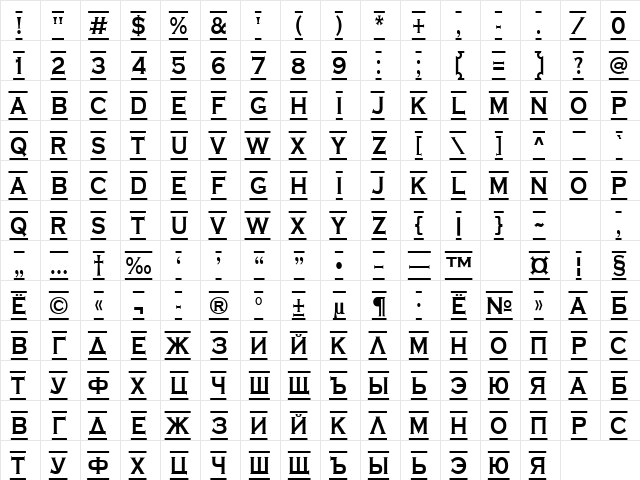
a_CopperGothDcFr Bold
Design Context for a_CopperGothDcFr Typeface
a_CopperGothDcFr is a composed and adaptable typeface that performs quietly and consistently across a wide range of design contexts. Its bold stroke weight gives it real presence on the page.